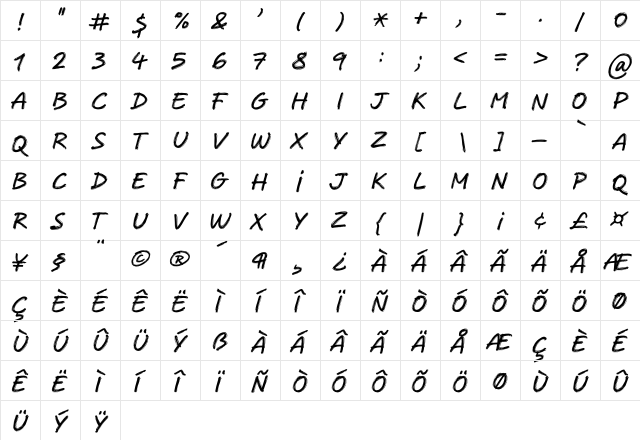
Crabmeal Regular
| Foundry | Youssef Habchi |
| Designer | Youssef Habchi |
Design Context for Crabmeal Typeface
Crabmeal is a composed and adaptable typeface that performs quietly and consistently across a wide range of design contexts.